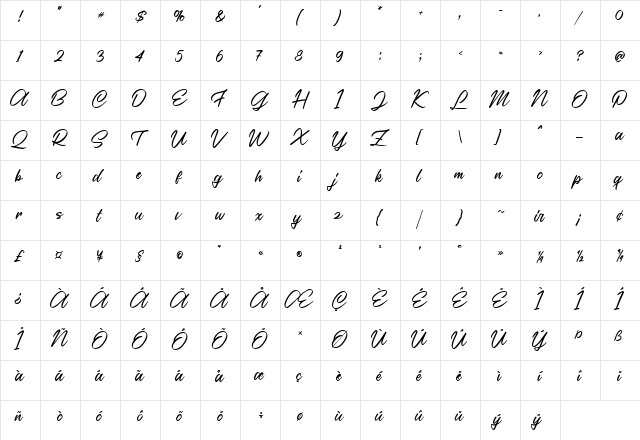
Casira Script Regular
Design Context for Casira Script Typeface
Casira Script flows with the natural rhythm of handwritten lettering, making it ideal for designs that call for warmth and personal expression.
Font Pairing: Combine Casira Script with a simple geometric sans for maximum contrast — the tension between flowing curves and clean structure is a classic typographic pairing.
Pro Tip: Pair Casira Script with a clean sans-serif for supporting text. The contrast between fluid script and geometric structure creates an elegant typographic hierarchy.